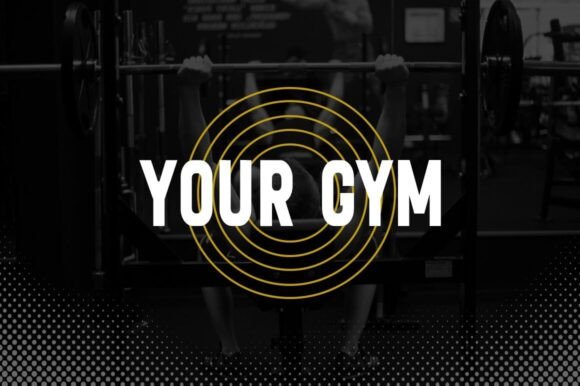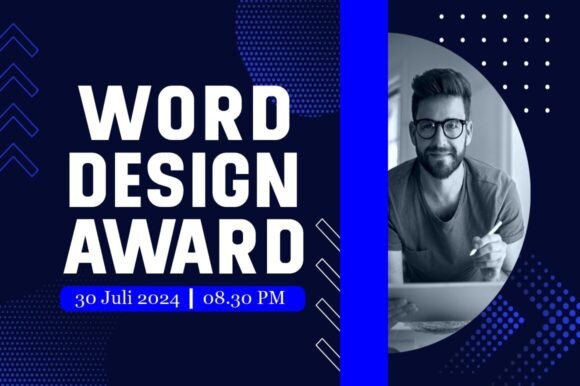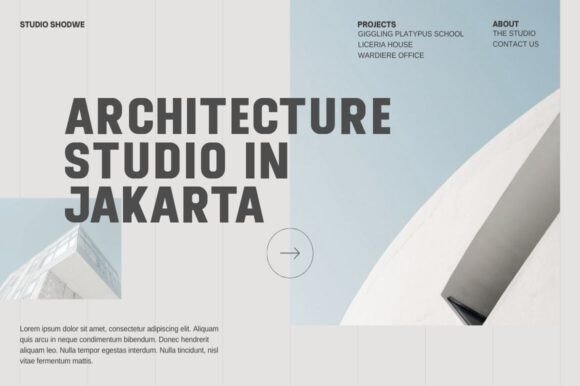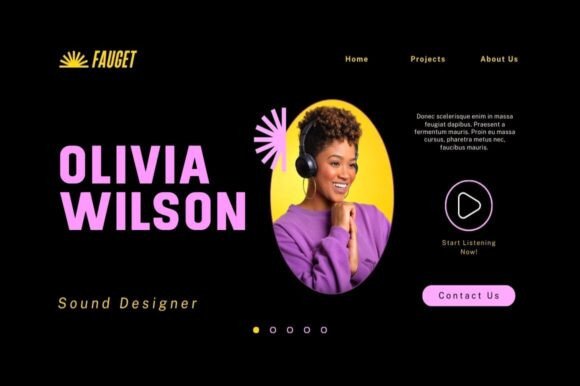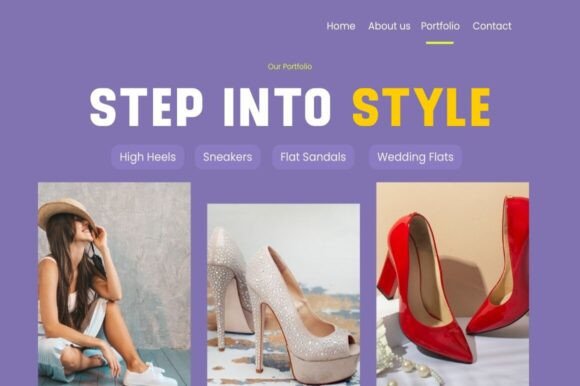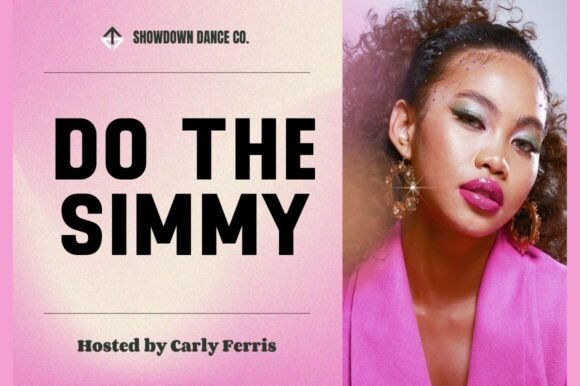
Introducing Eldon Dark: The Bold and Striking Display Font
Have you ever been in the middle of a design project, and suddenly, you’re stuck on finding the perfect font? I recall a recent experience where I was working on a branding project for a luxury car company, and I just couldn’t find a font that conveyed the right amount of sophistication and strength. That’s when I stumbled upon Eldon Dark, a bold and striking Display Sans Serif font that completely transformed my design. In this article, we’ll dive into the world of Eldon Dark, exploring its features, uses, and everything in between.
A Personal Review: What I Love and What I Think Needs Improvement
- ✅ Confidence and Sophistication: Eldon Dark exudes confidence and sophistication, making it perfect for headlines, posters, and branding that demand attention.
- ✅ Clean and Modern Lines: The font’s clean, modern lines and strong geometric shapes create a harmonious yet assertive aesthetic.
- ✅ Readability and Creative Expression: Its minimalist design ensures readability while still allowing for creative expression, making it an excellent choice for both digital and print media.
- 🤔 Limited Use Cases: While Eldon Dark is an excellent font, it might not be suitable for body text or smaller font sizes, as its bold nature can be overwhelming.
- 🤔 Glyph Limitations: Some users might find the glyph set limited, especially when compared to other fonts with more extensive character sets.
Eldon Dark was designed with the intention of creating a bold and striking font that conveys confidence and sophistication. The designer aimed to create a font that balances sharp edges with smooth curves, resulting in a harmonious yet assertive aesthetic. While the real backstory might be unknown, it’s clear that the designer succeeded in creating a font that’s both modern and timeless.
| What is Eldon Dark best used for? | Eldon Dark is best used for headlines, posters, and branding that demand attention. Its bold nature makes it perfect for creating a strong impression. |
| Is Eldon Dark suitable for body text? | No, Eldon Dark is not suitable for body text. Its bold nature can be overwhelming for smaller font sizes, making it better suited for headlines and titles. |
| Is Eldon Dark available in different weights? | While Eldon Dark is primarily a bold font, it may be available in different weights or variations. Check with the font designer or foundry for more information. |